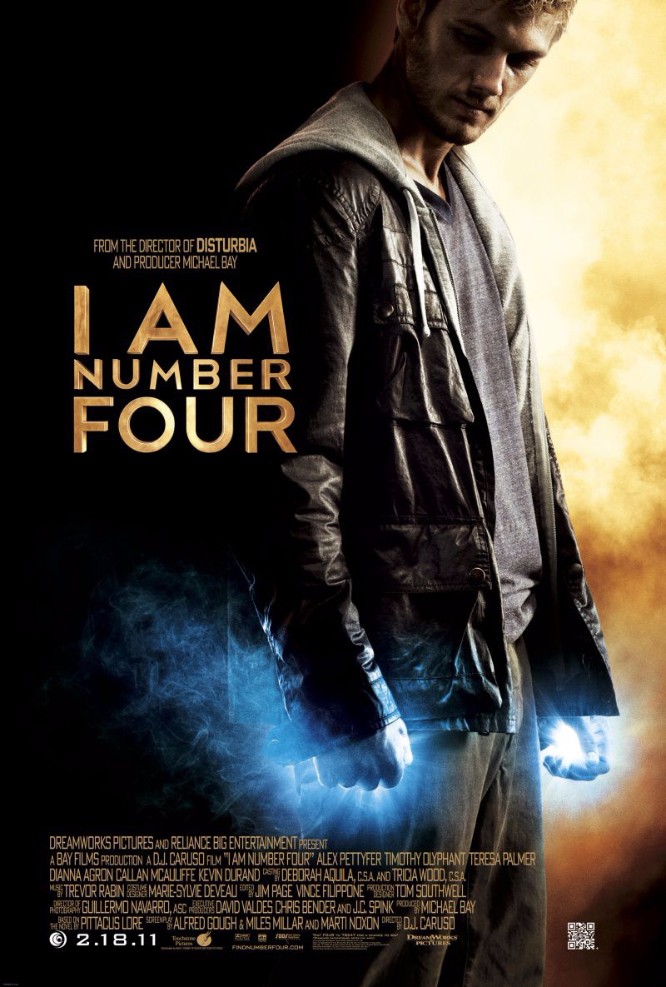
Fonts in UseI Am Number Four is a 2011 sci-fi movie based on the novel of the same name. The film follows a teenage alien who hides on Earth to escape his planet's destruction, but he must fight to survive when his enemies track him down.
The title font on the poster closely resembles Littera Plain Medium, a modern interpretation of the widely-used sans-serif typeface in the USSR known as "TextBook Font," designed by Roman Gornitsky. To learn more about the font please check here.